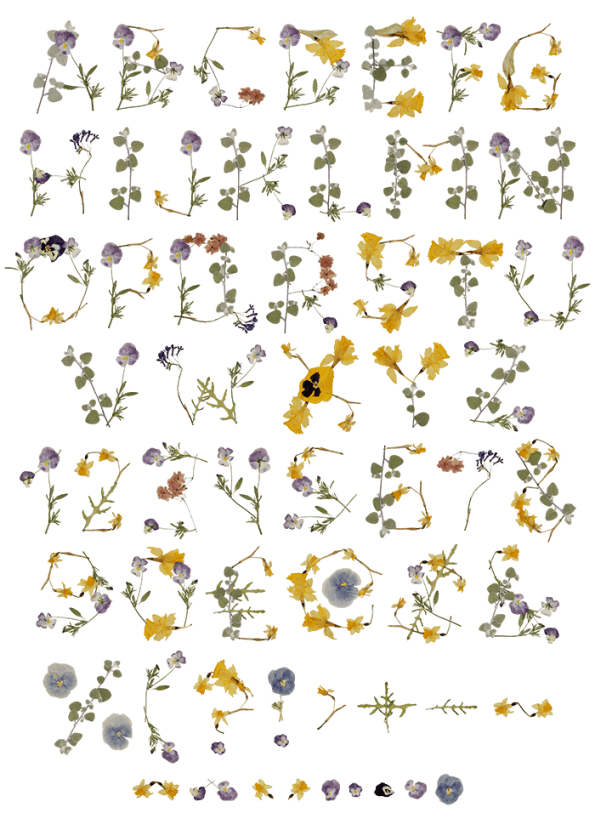
Herbarium Font. Keep Memories With Beautiful Typeface
A composition of flowers can be transformed into a beautiful typeface, and this is the very thing we did to create Herbarium Font. A collection of dried plants can send various messages, from eco-responsible manifests to purely romantic letters. This handmade font was designed to become a memory that will last and be treasured.
Floral Font That’s Better Than Any Illustration
While thinking about the concept of this floral font, we remembered Carl Linnaeus’s words. The genius once said that a herbarium is better than any illustration. And that every botanist should make one. Maybe, we aren’t botanists with a diploma, but we love flowers and flower typography very much. And we agree that such a catalogue of plant samples gives you more info than any text.
And we made Herbarium Font. This delicate beautiful typeface will tell a story you want to give it. And it will do it better than anything.
How To Amaze With Herbarium Font
When you start working with Herbarium Font, you’ll understand its appeal because there are multiple possibilities of using it. For instance, you may decorate a botany book with it or use it for a great presentation of an ecology-related project. And you may take a different path and design something romantic. A composition of dried flowers may serve as a depiction of a love story: it may end, but some feelings stay in our memory forever.
This font set contains all the elements besides letters, such as figures, punctuation marks and currency symbols.